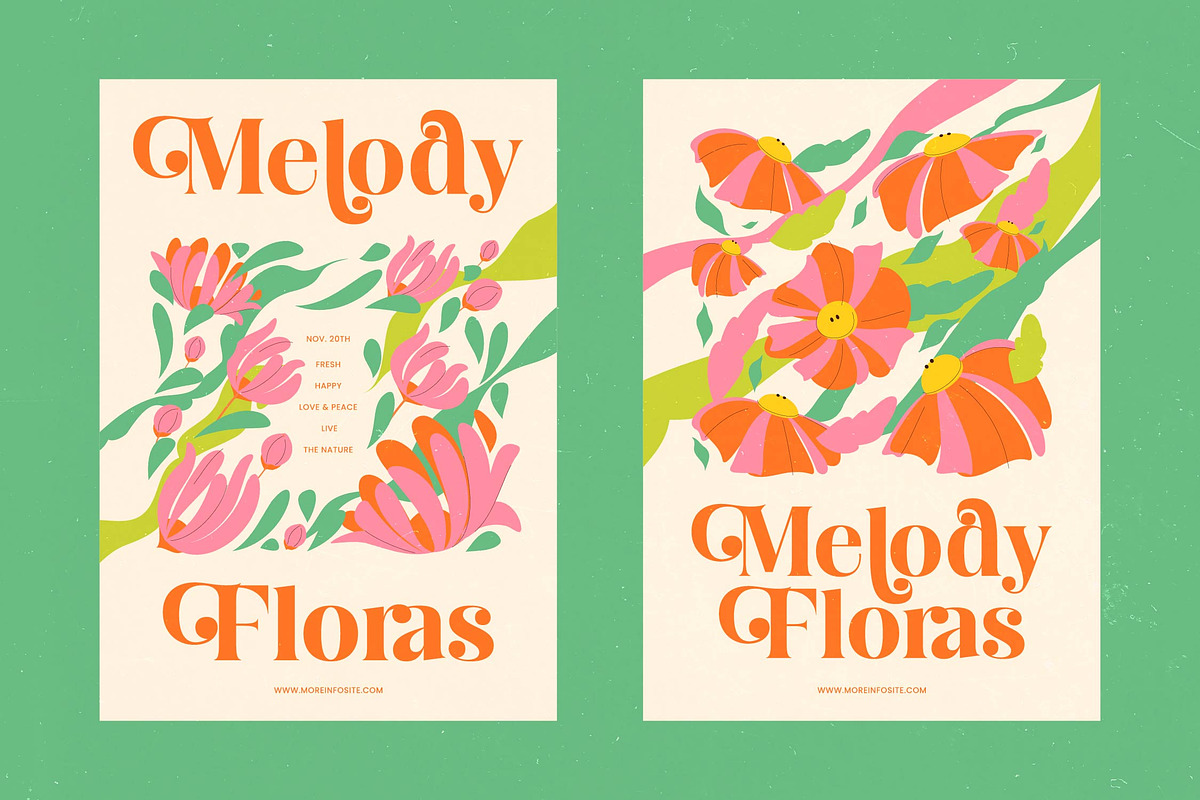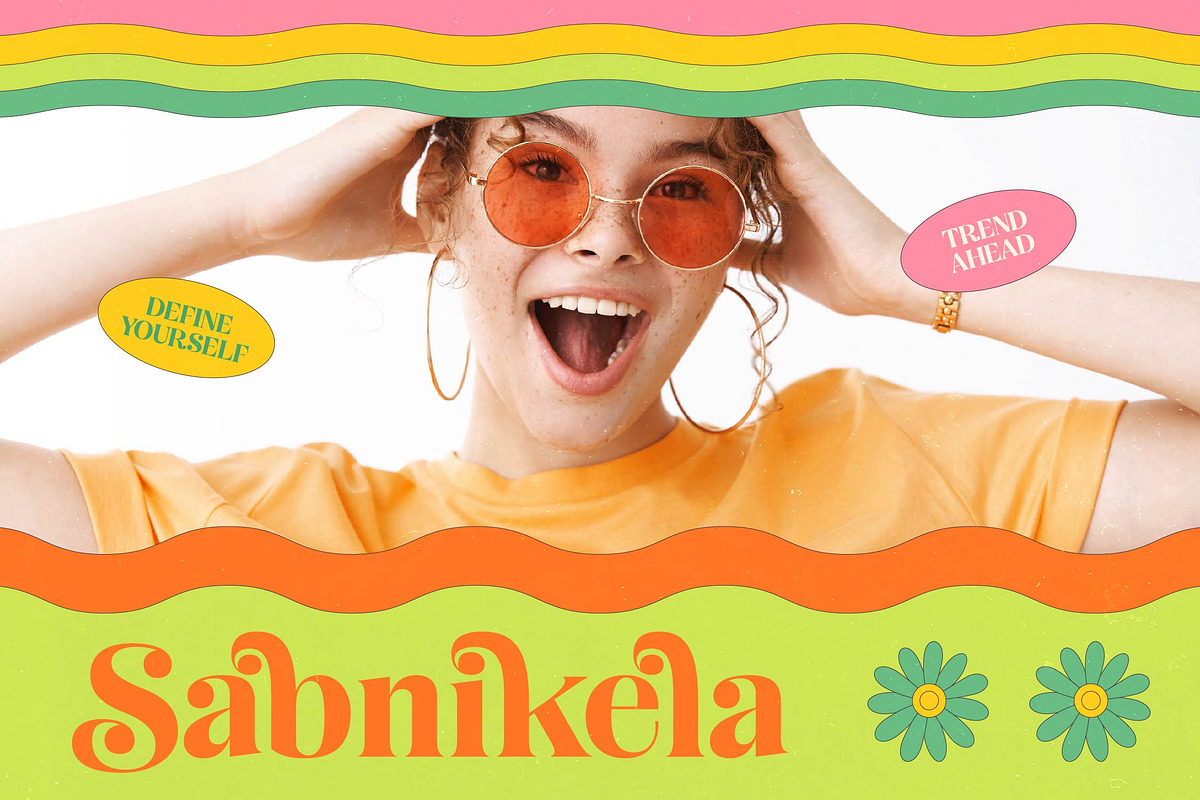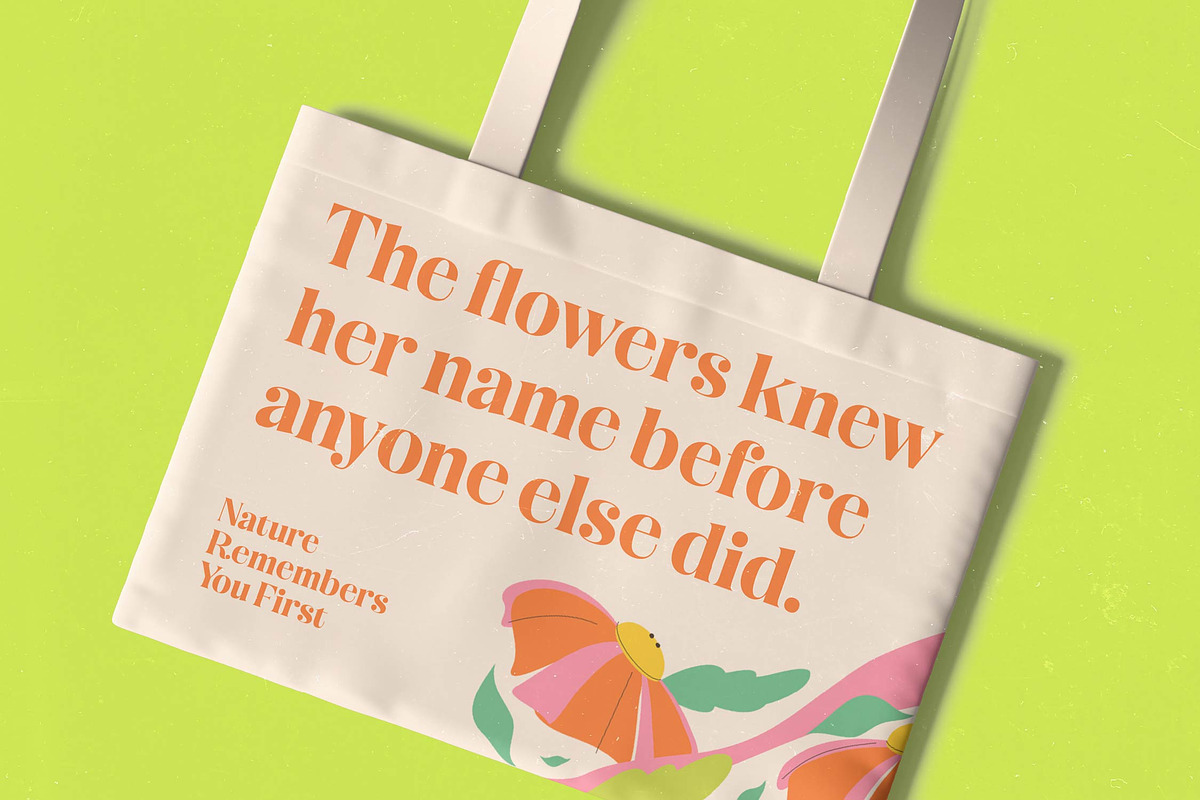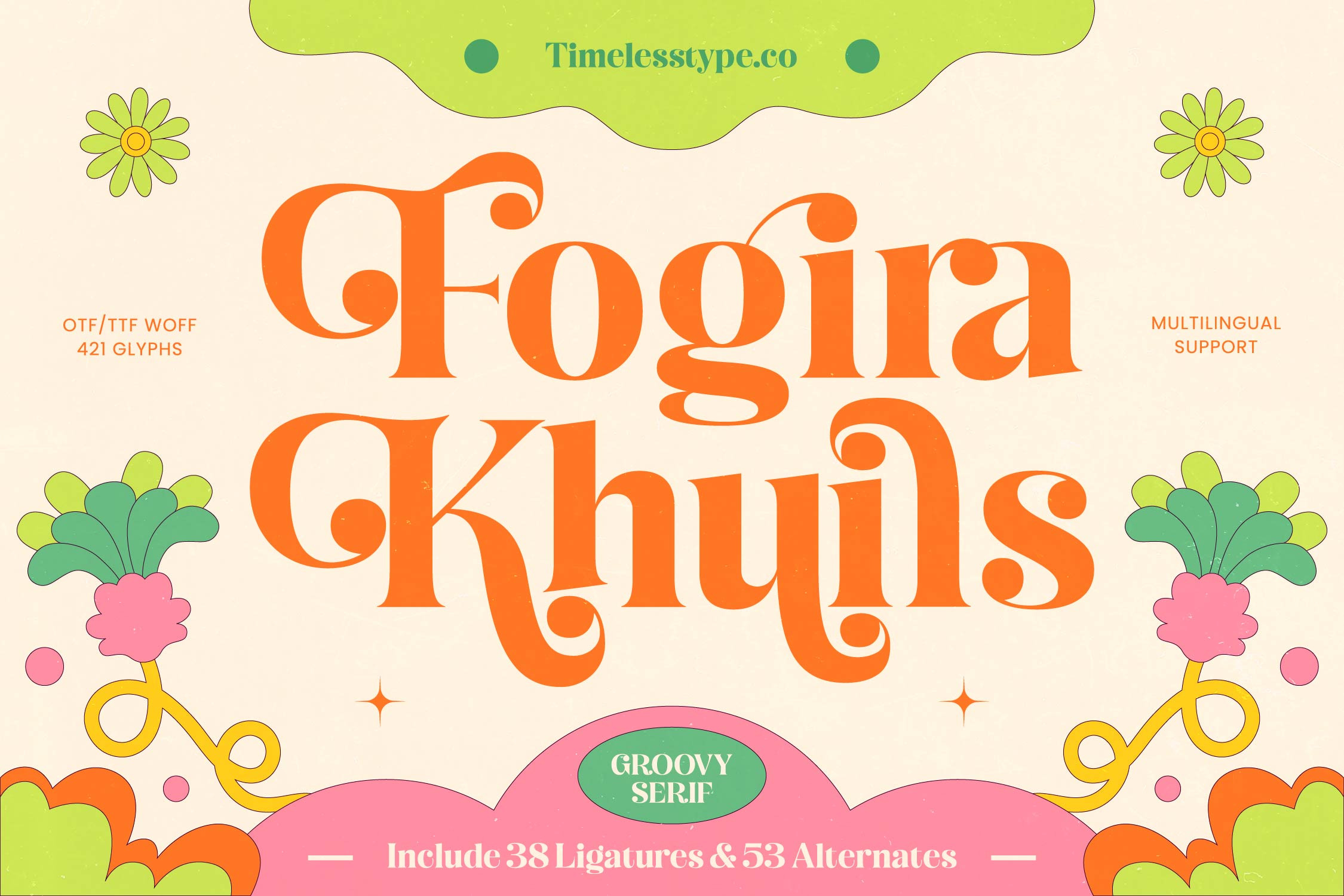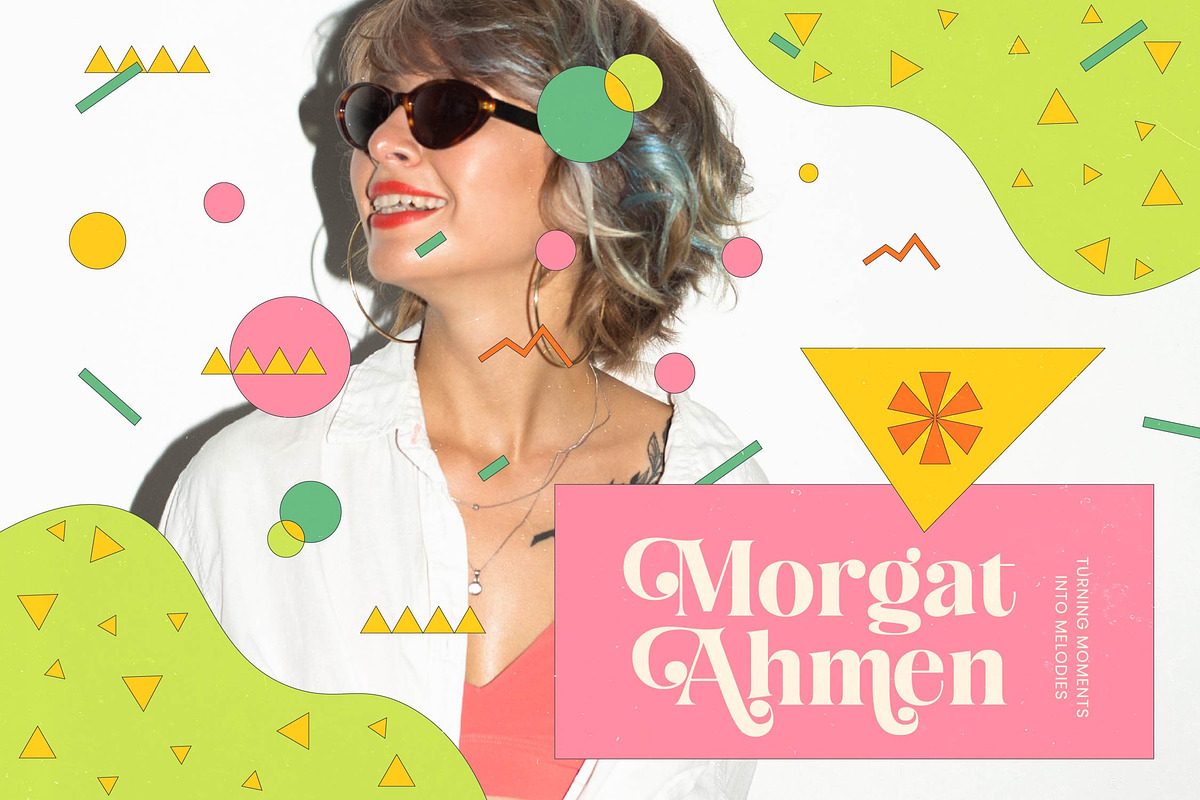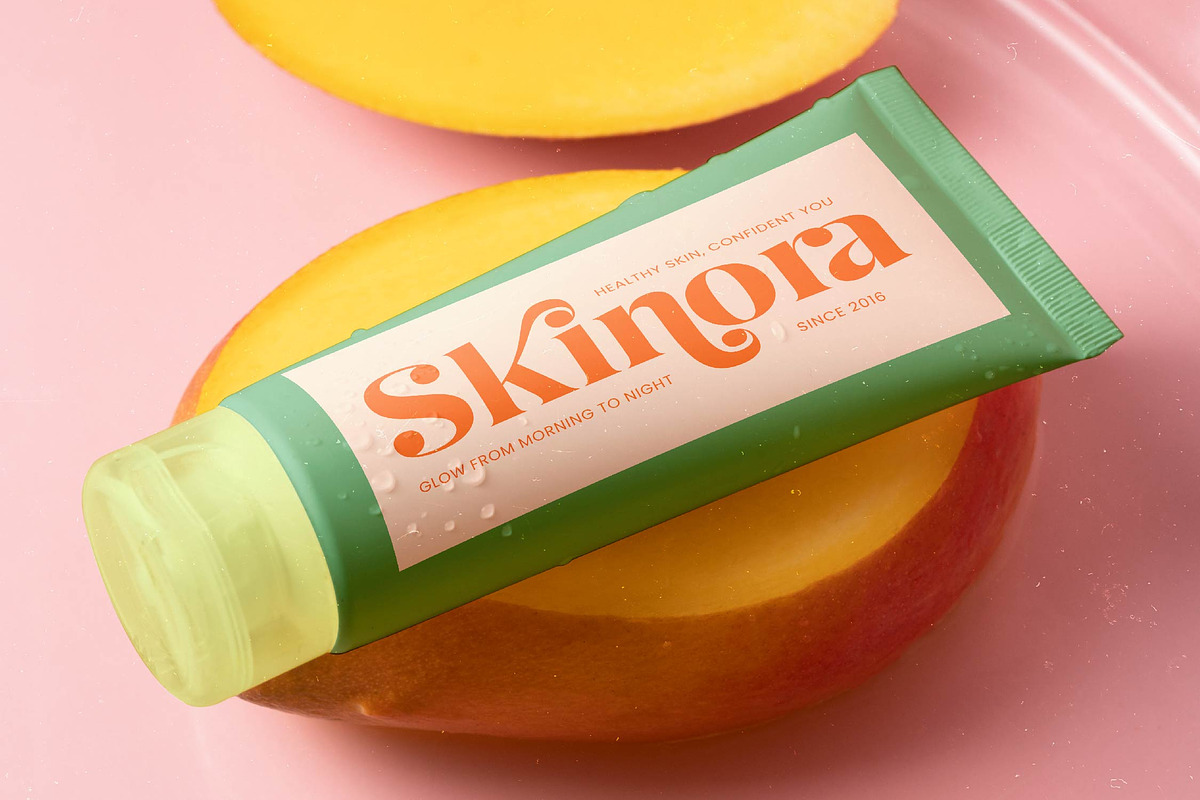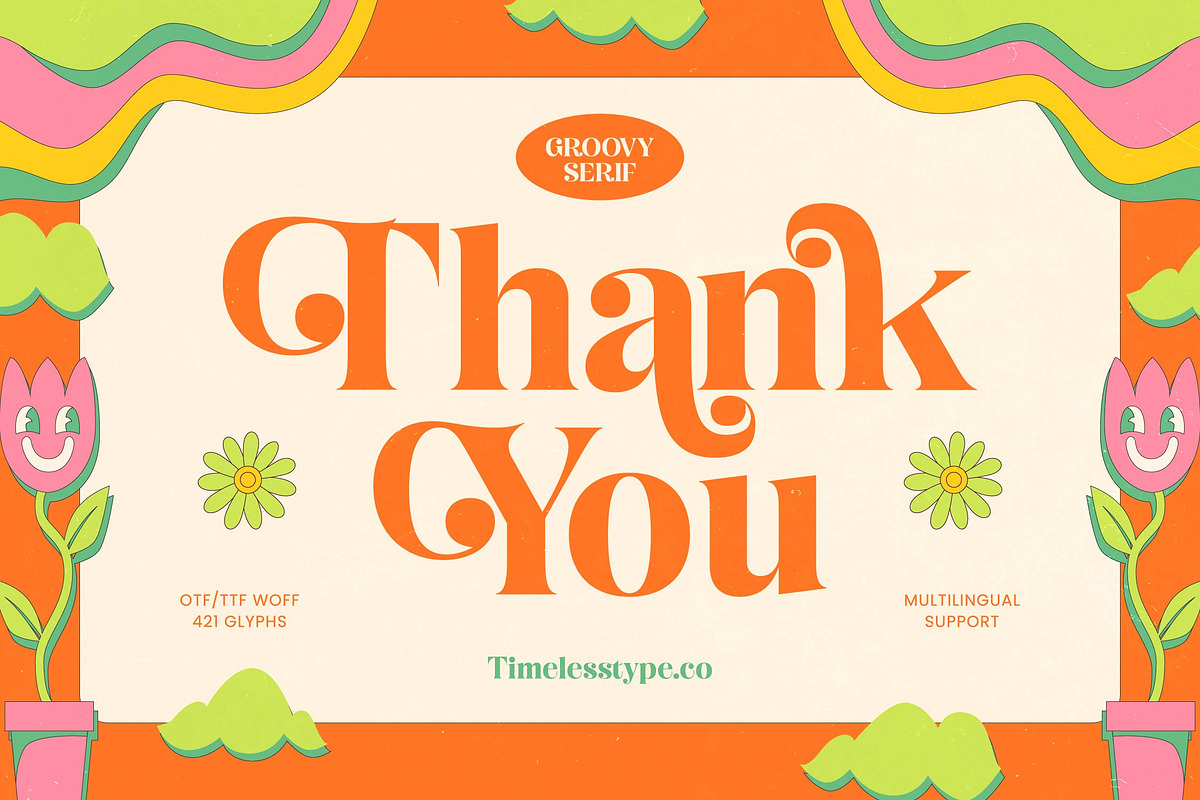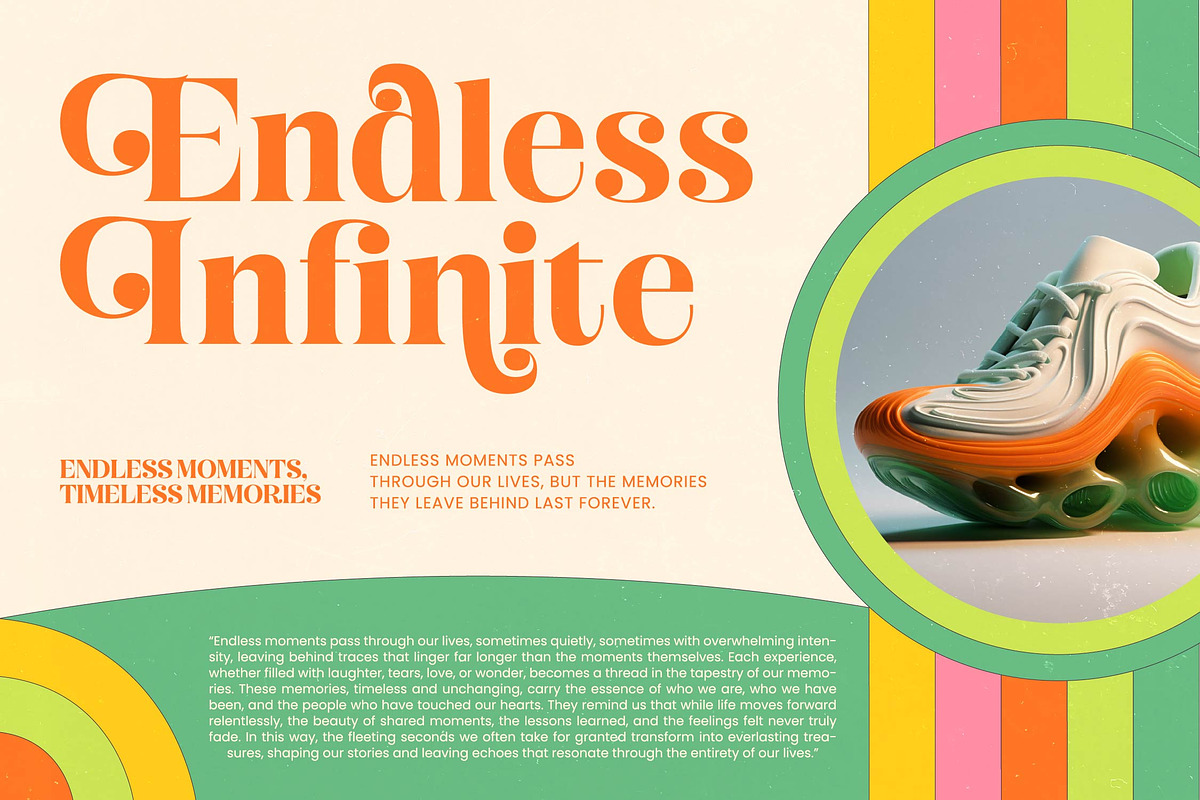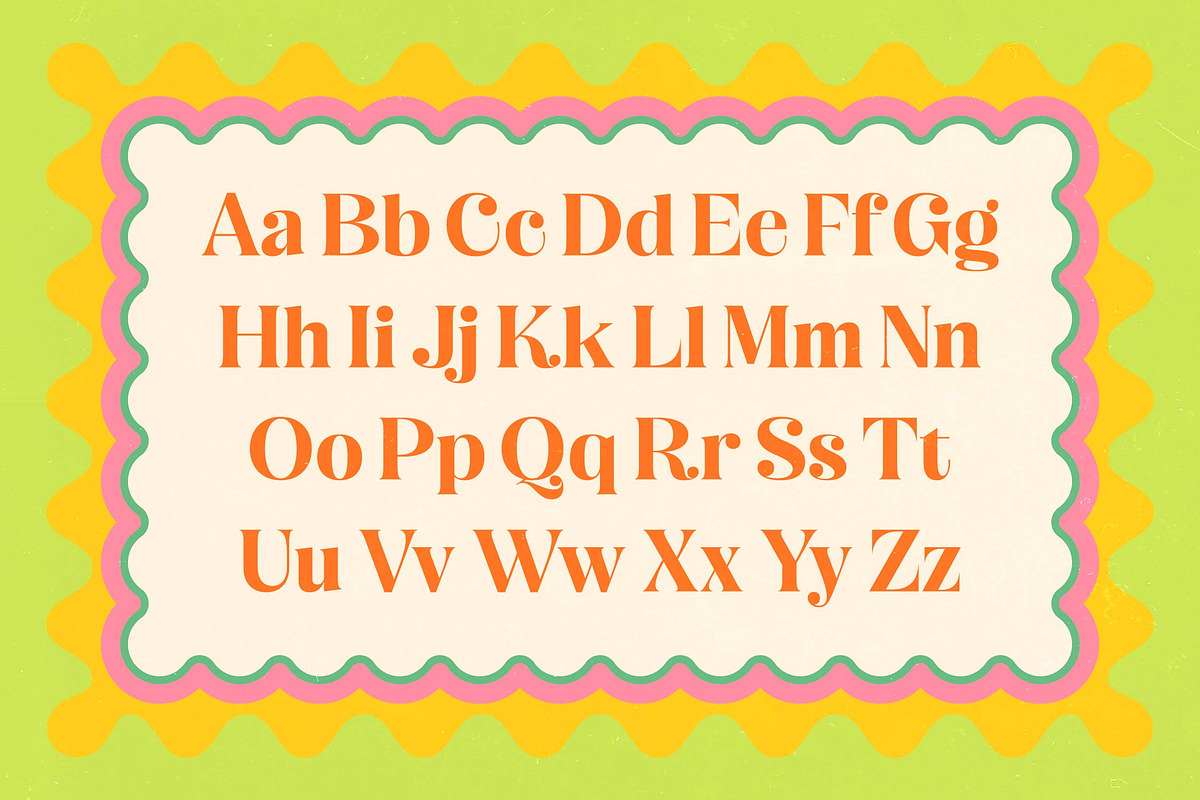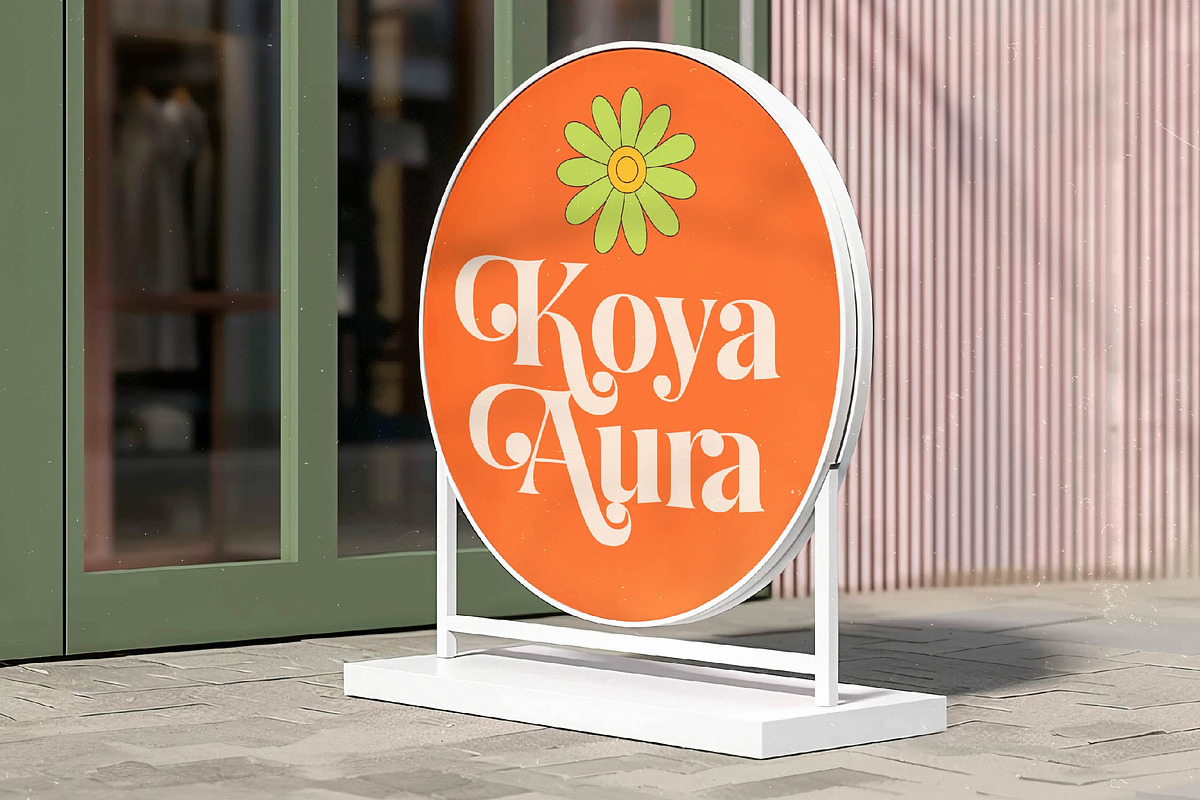
Fogira Khuils Groovy Serif Font
Fogira Khuils – Groovy Serif Font , Redefine nostalgia with a typeface that masterfully blends retro charm with modern sophistication. Fogira Khuils – Groovy Serif Font is a stunning high-contrast display face capturing the expressive energy of the 1970s. Its unique curvilinear anatomy and bold structure create a rhythmic visual flow that commands attention. Designed for a distinctive aesthetic, this font brings a dynamic character and premium personality to any creative layout.
Transform brand storytelling through a typeface engineered for maximum impact. This is the ultimate solution for luxury branding, editorial layouts, and vibrant product packaging. Fogira Khuils – Groovy Serif Font is perfect for lifestyle magazines and music posters requiring a touch of vintage flair. With numerous ligatures and stylistic alternates, it allows for seamless creative customization across high-end design projects and modern visual identities.
Expand global horizons without compromising on style or functionality. With its extensive multilingual support, Fogira Khuils – Groovy Serif Font adapts seamlessly across global markets, making it incredibly versatile for international projects. This comprehensive glyph set ensures consistent legibility and professional execution across various languages. Choosing Fogira Khuils – Groovy Serif Font means investing in a versatile typographic tool that offers broad commercial appeal for a worldwide audience.
Secure a professional edge with a font delivering both artistic beauty and technical precision. Featuring 421 glyphs, Fogira Khuils – Groovy Serif Font is fully optimized for all digital and print environments. Its meticulous kerning ensures superior readability at any size, while the playful swirls maintain a sophisticated feel. Let Fogira Khuils – Groovy Serif Font become the cornerstone of your next iconic campaign and elevate your design work to new heights.